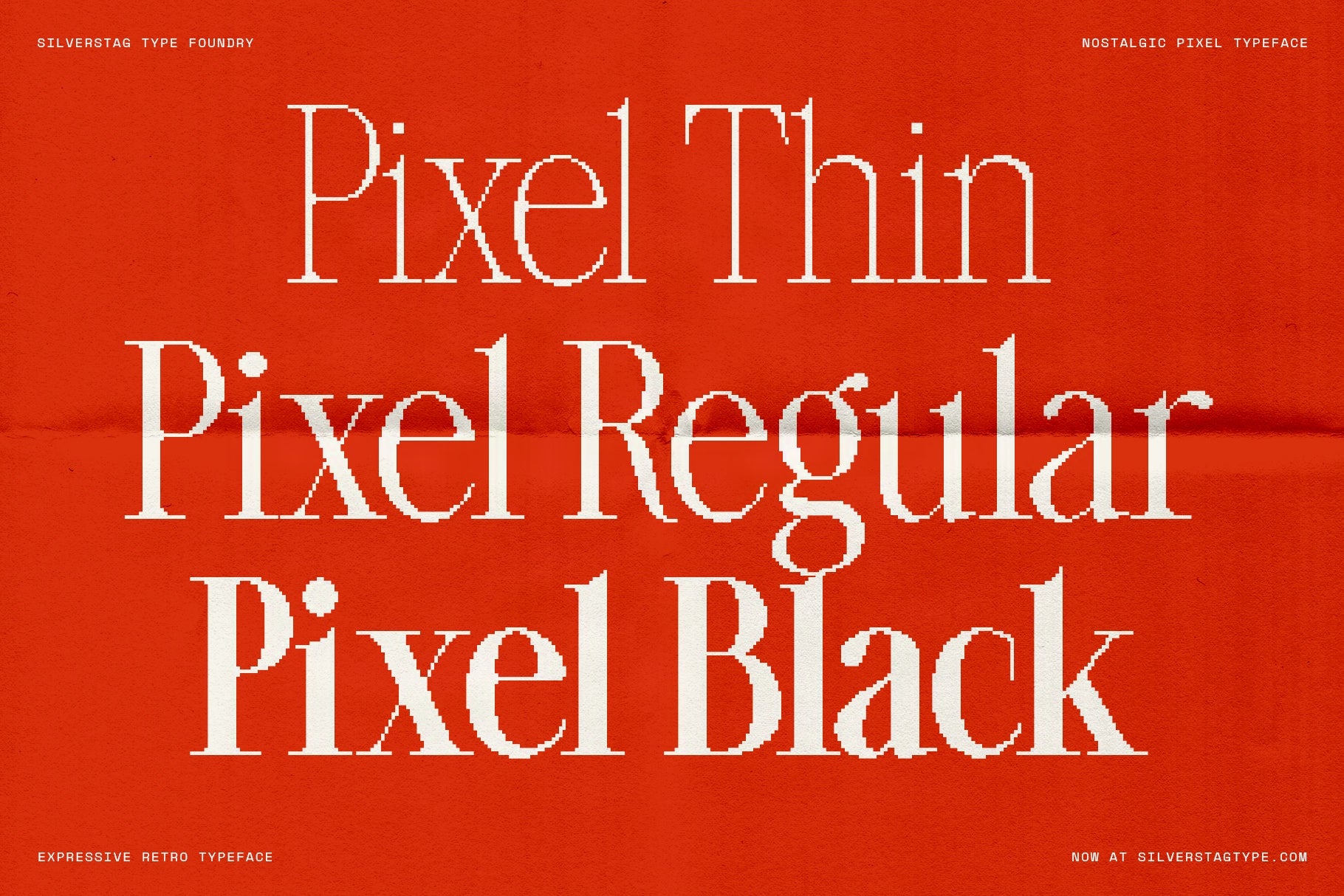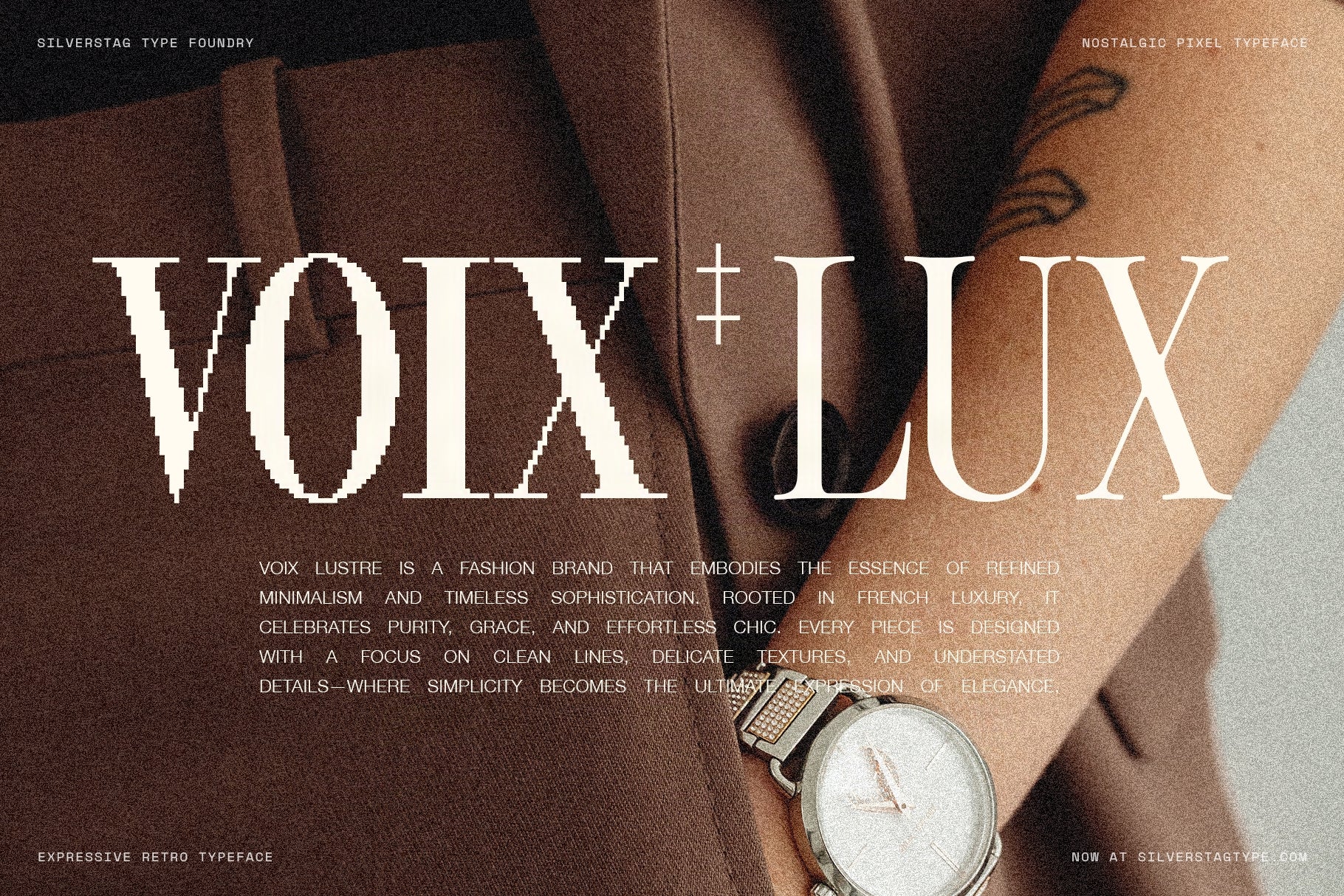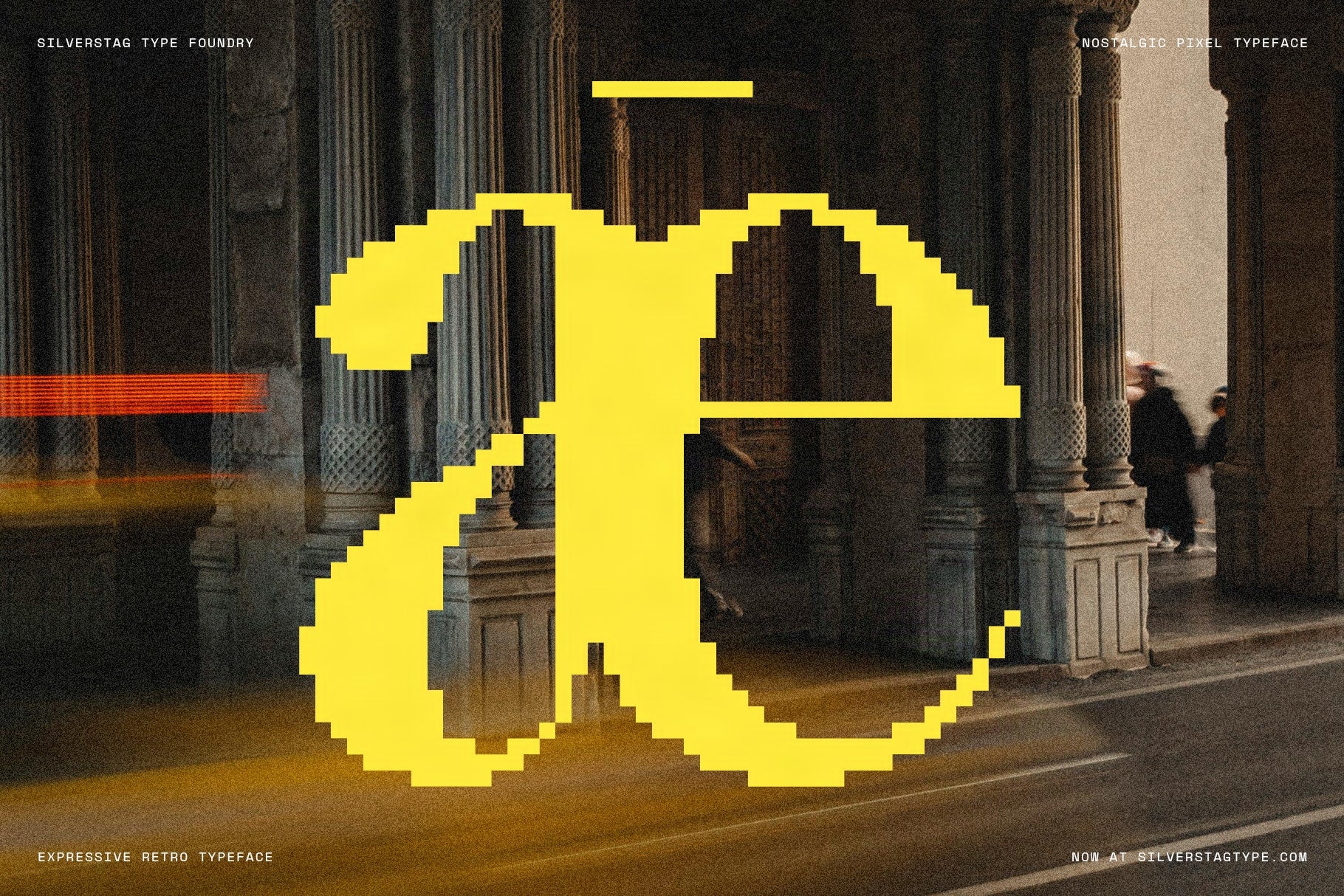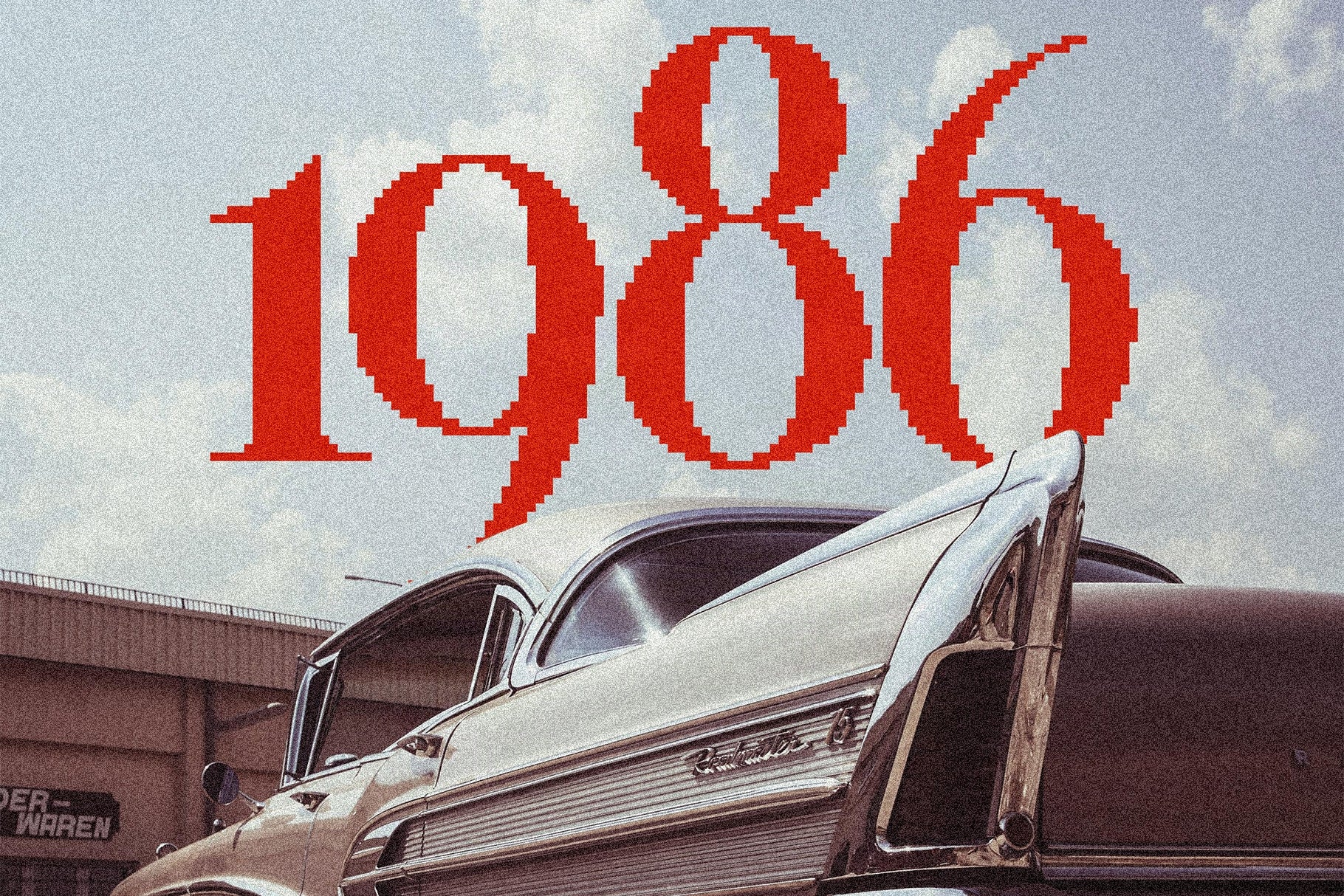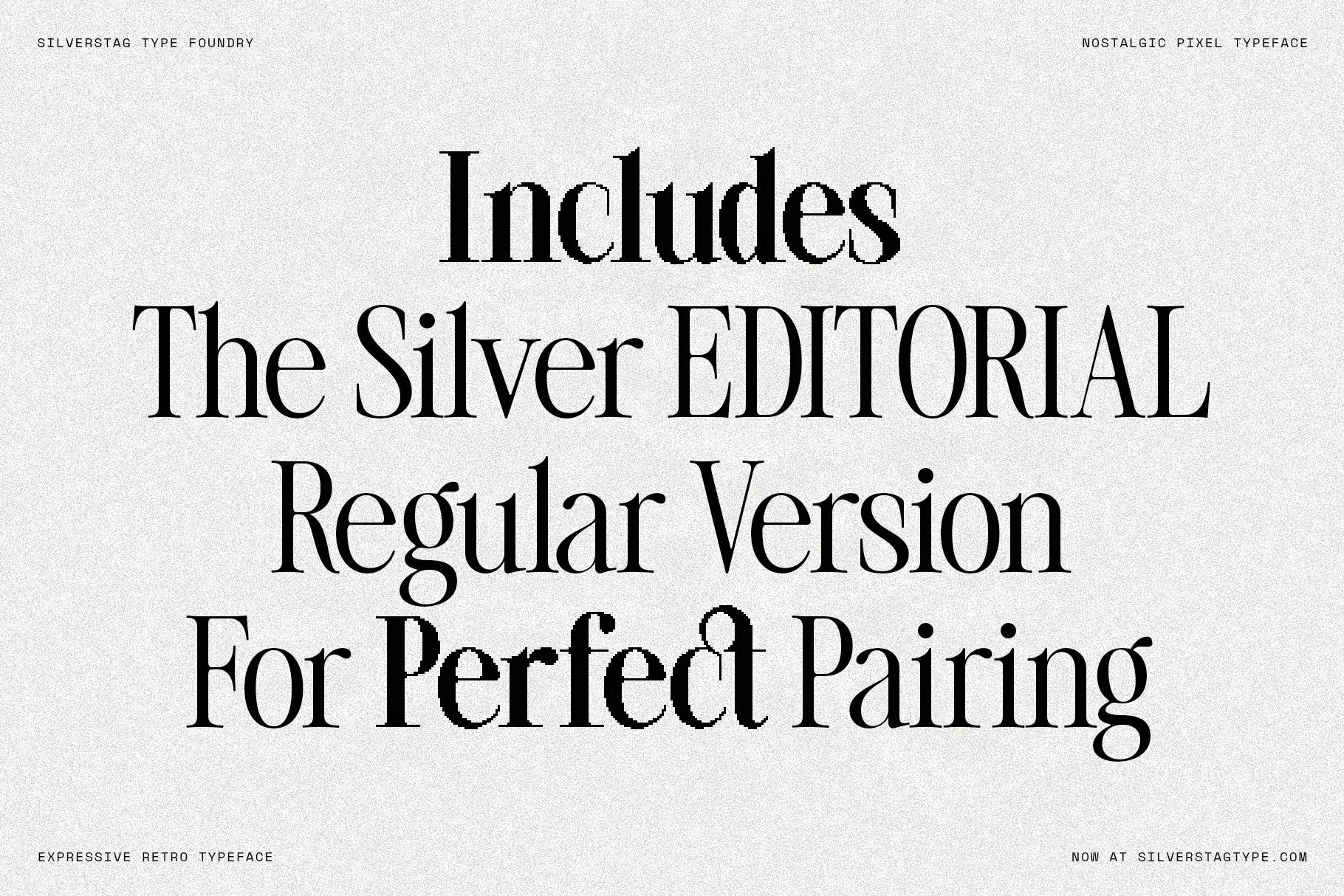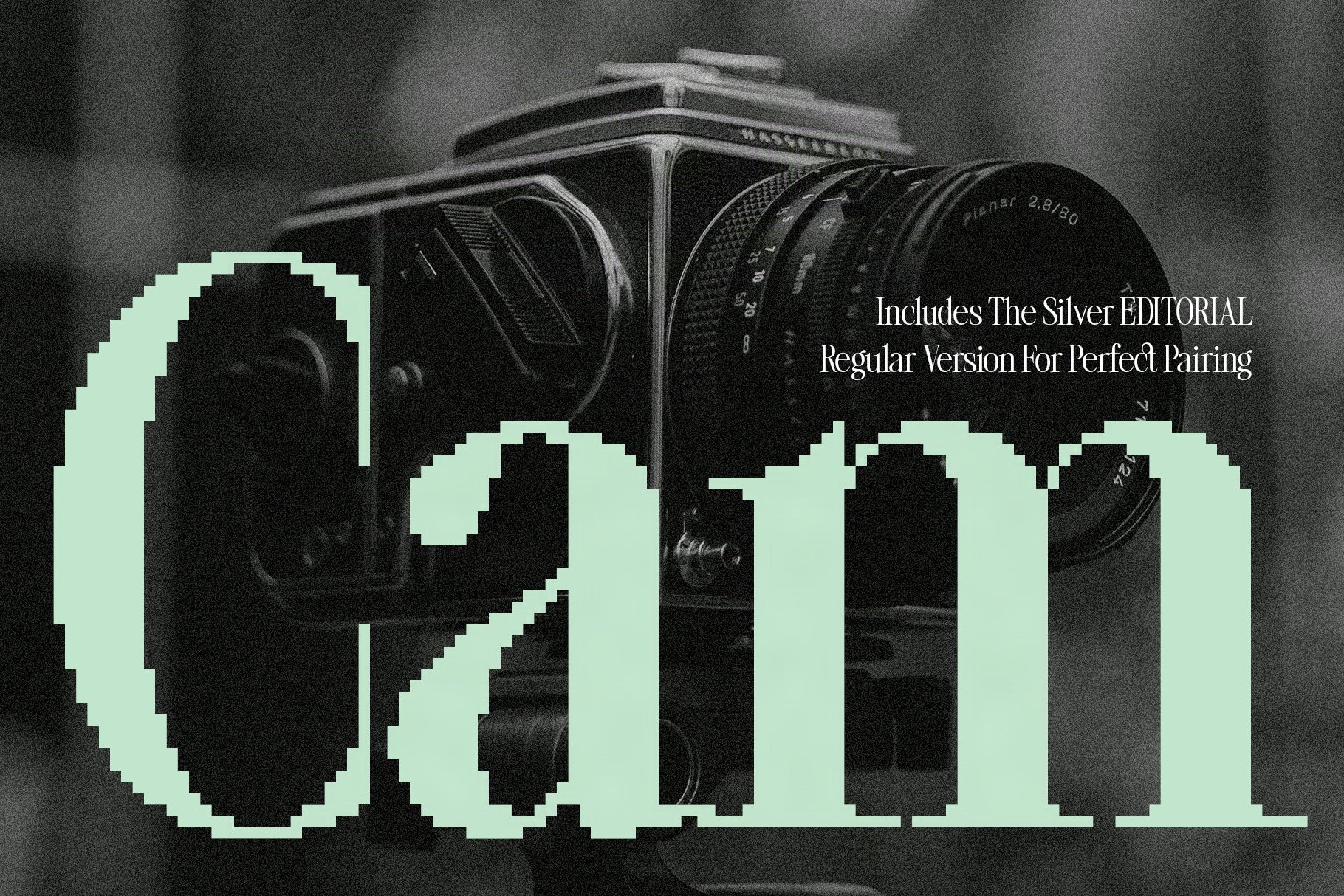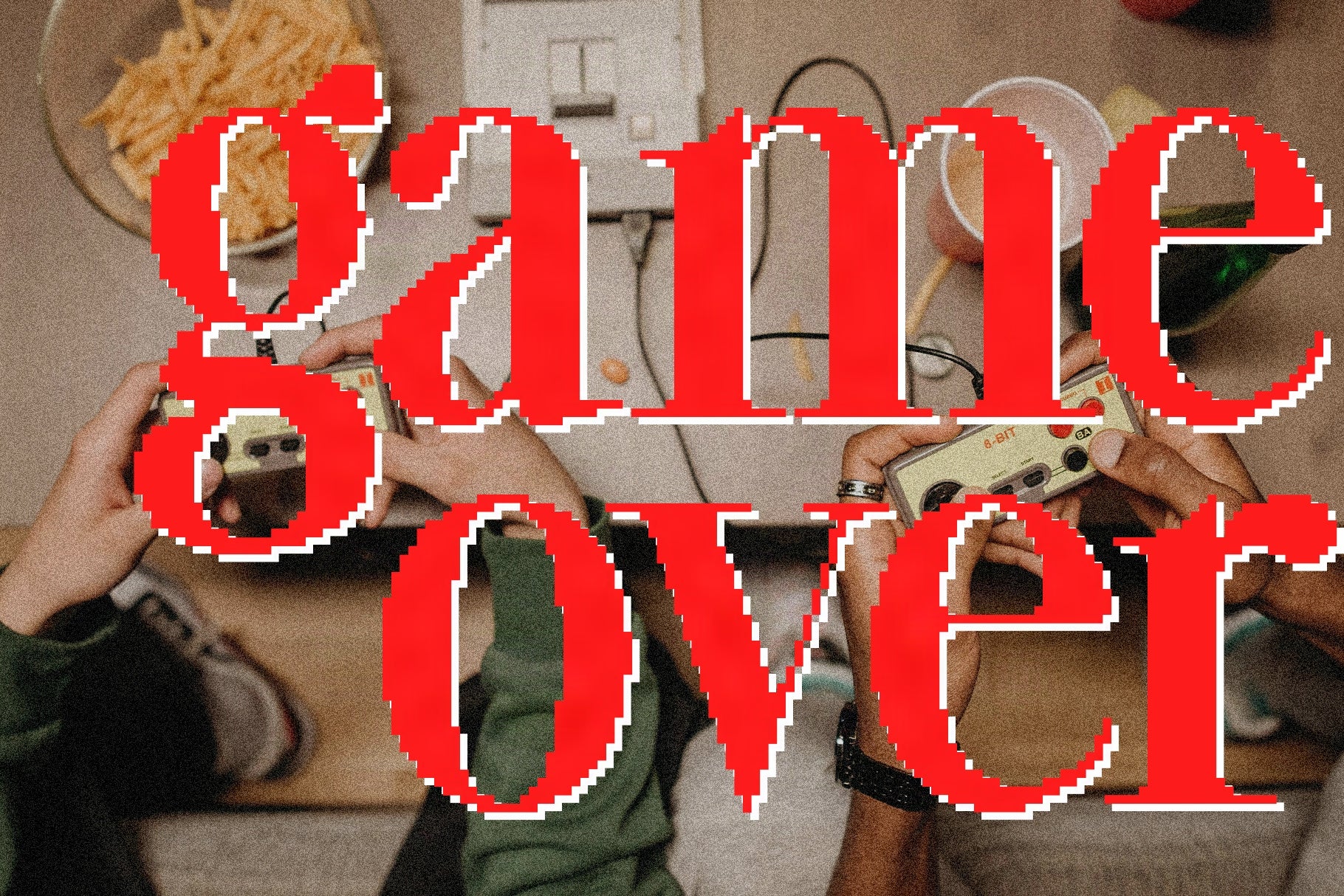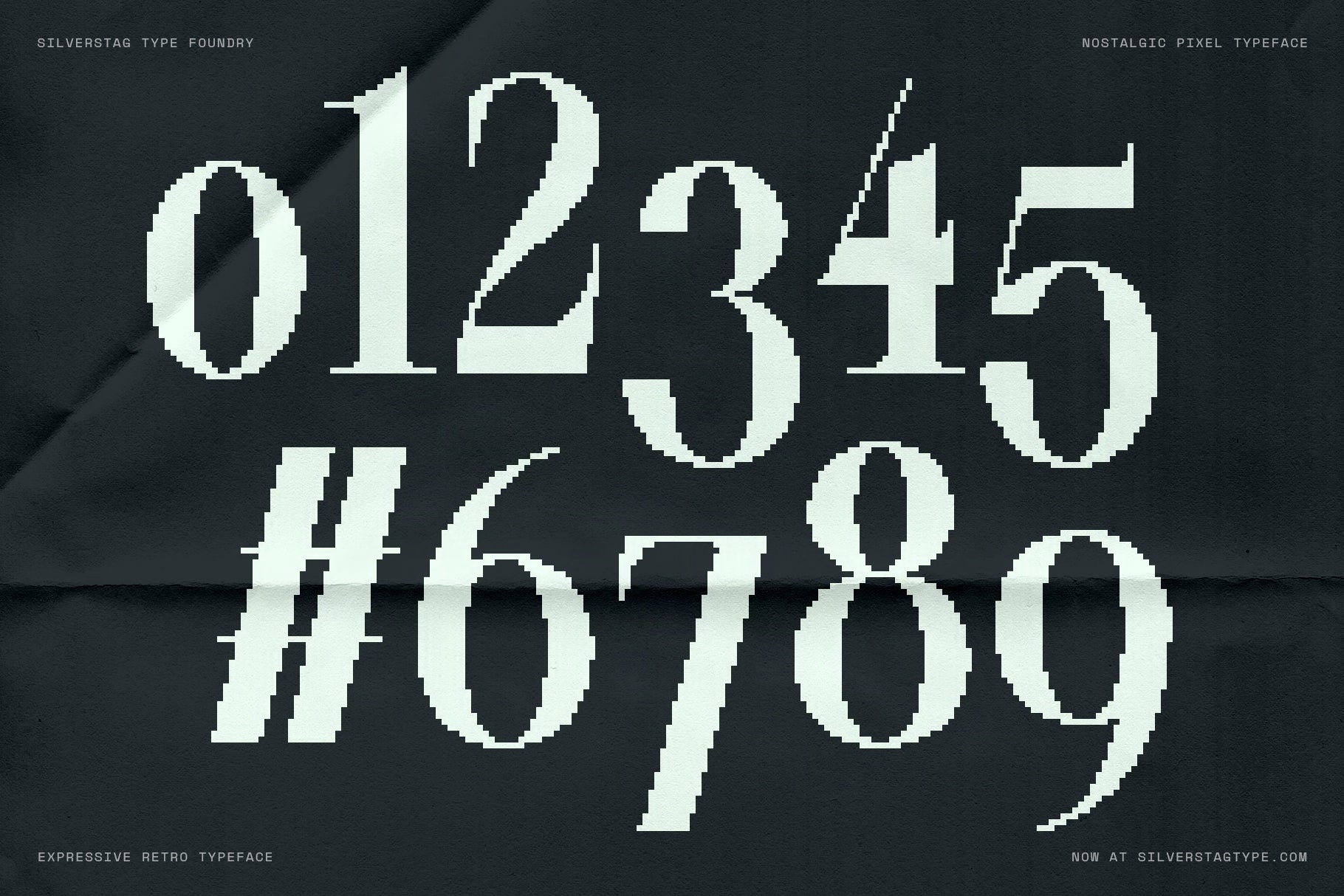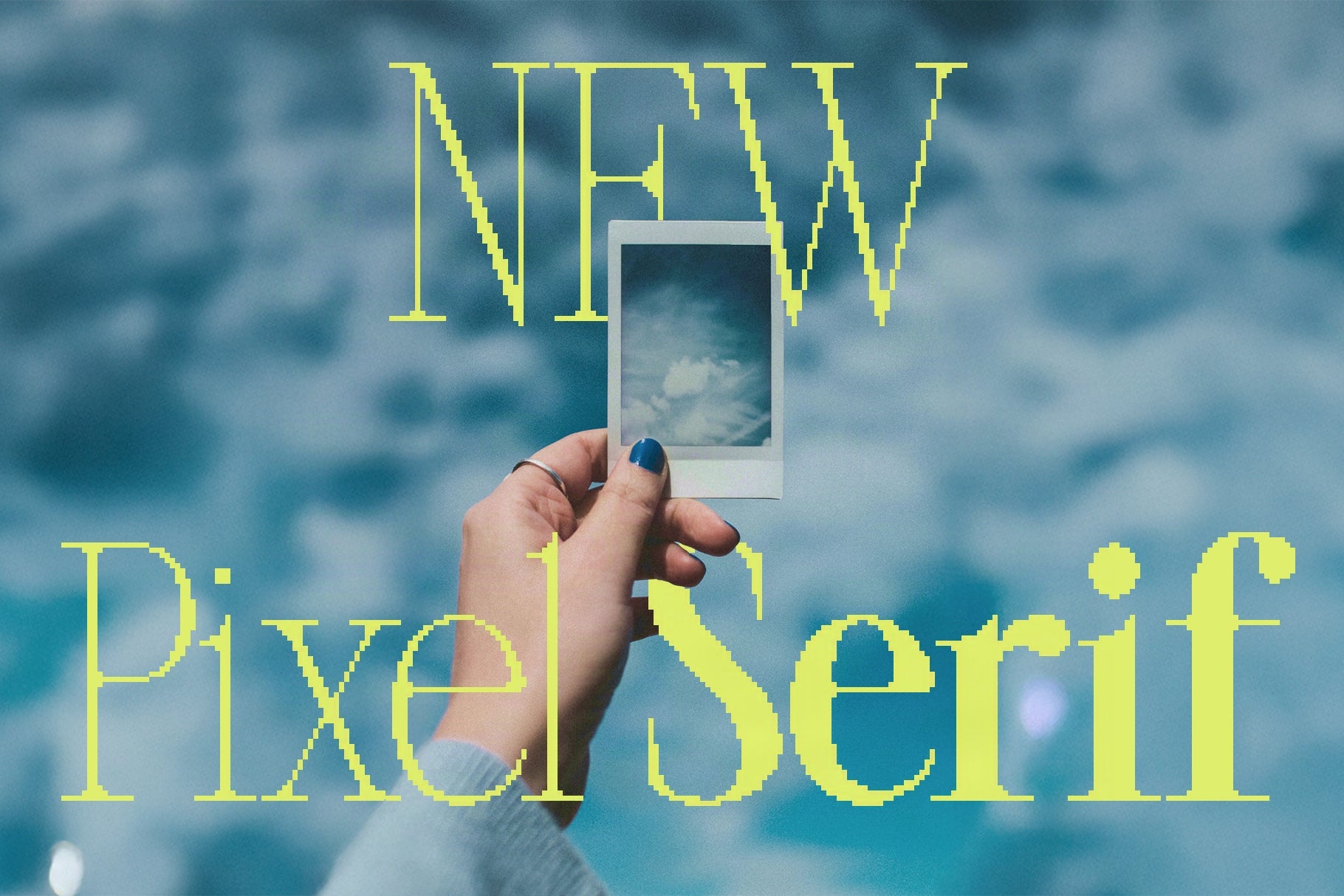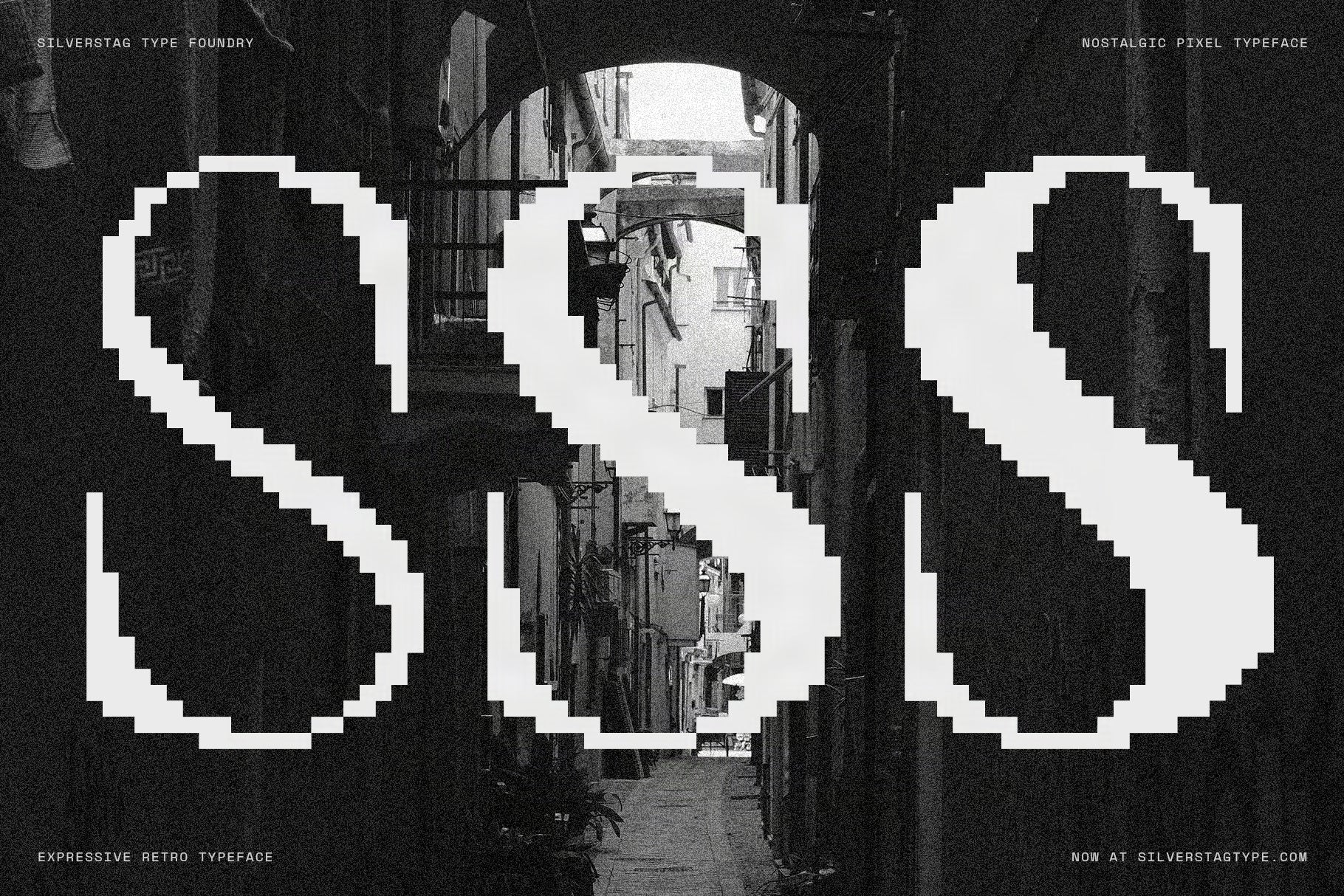
SLTF The Silver Editorial Pixel Version is a love letter to classic editorial type, reimagined through a pixel lens - refined, nostalgic, and unapologetically bold. Think luxury meets arcade, fashion meets 8-bit, magazine elegance with just the right amount of grit.
What makes it special:
This release is built for contrast. You get the pixel cuts for that instant nostalgic texture, and you also get the original The Silver Editorial Regular so you can pair pixel headlines with clean supporting type inside the same visual world.
Use it when you want your typography to feel editorial and elevated, but still unexpected.
• The Silver Editorial Regular - standard version for perfect pairing
• The Silver Editorial Pixel Thin
• The Silver Editorial Pixel Regular
• The Silver Editorial Pixel Black
Best for:
• Editorial headlines and fashion branding
• Logos and wordmarks that need a nostalgic twist
• Packaging, posters, album covers, and campaign visuals
• Premium design that wants to feel human, tactile, and slightly retro
• Mixing clean and pixel typography without switching type families
If you want a typeface that can look timeless and modern, then turn around and feel nostalgic and playful in the next layout, this is that bridge.